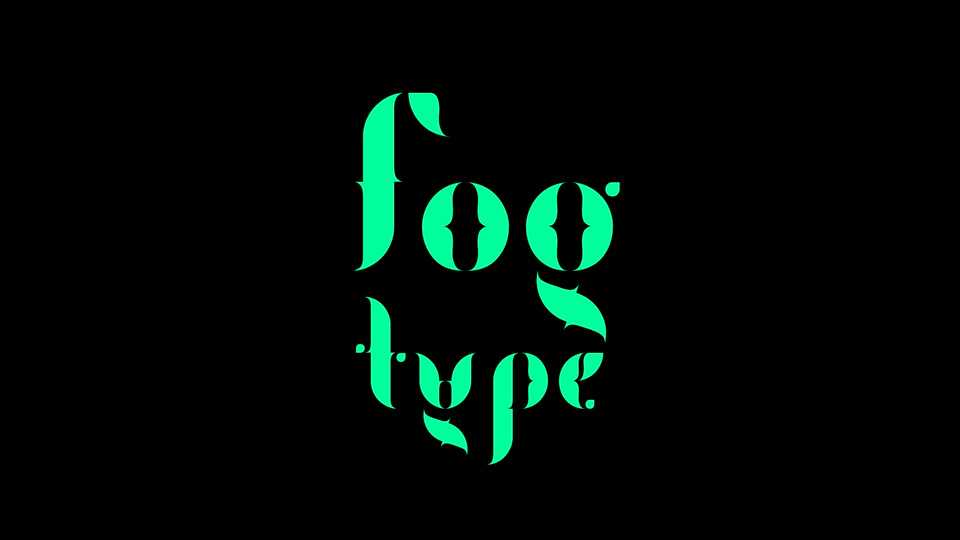
Download Fogtype font, a creative modular typeface born with the intention of breaking schemes using basic and smart forms to create from its alphabet to illustrations based on repetition.